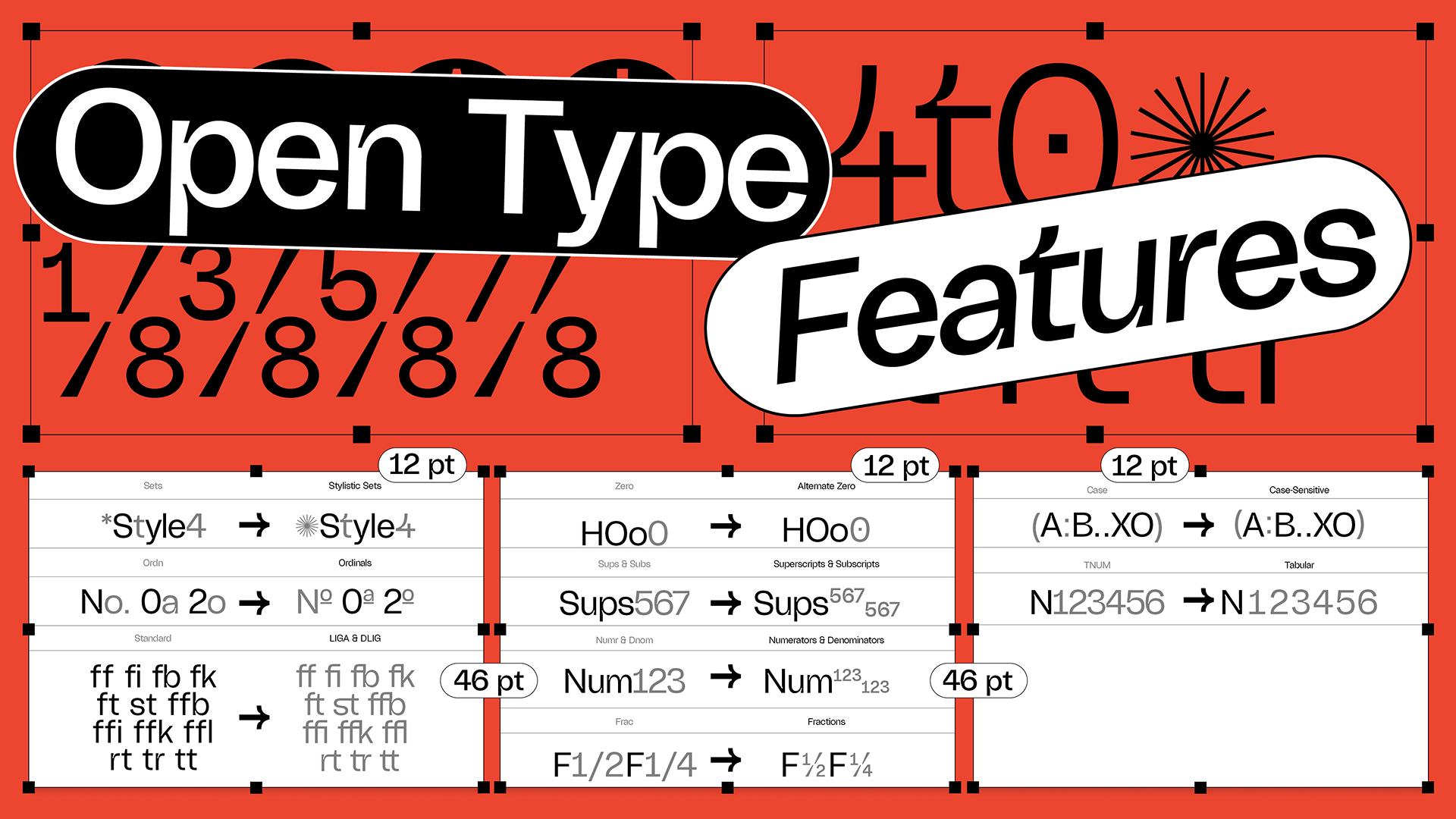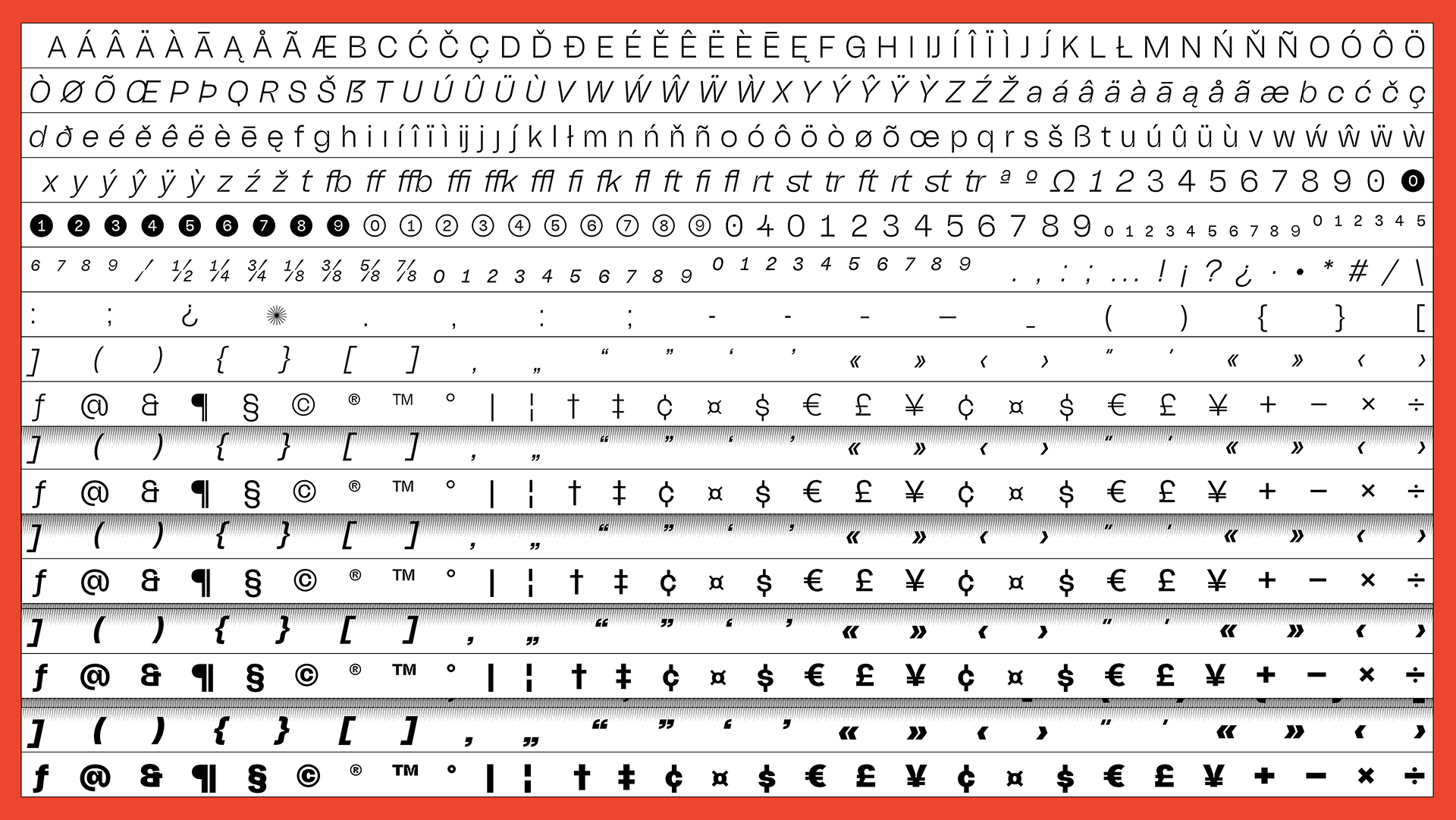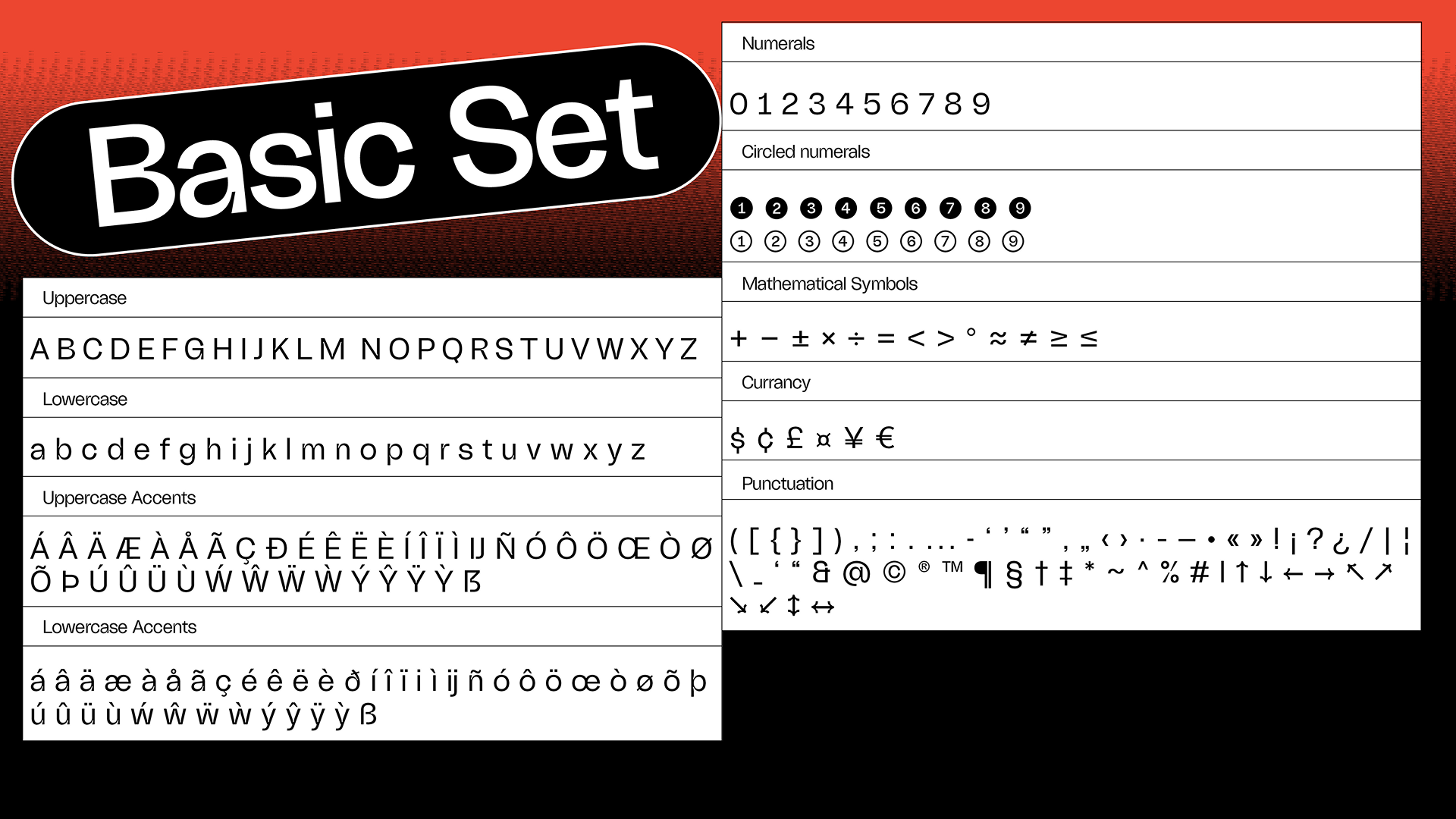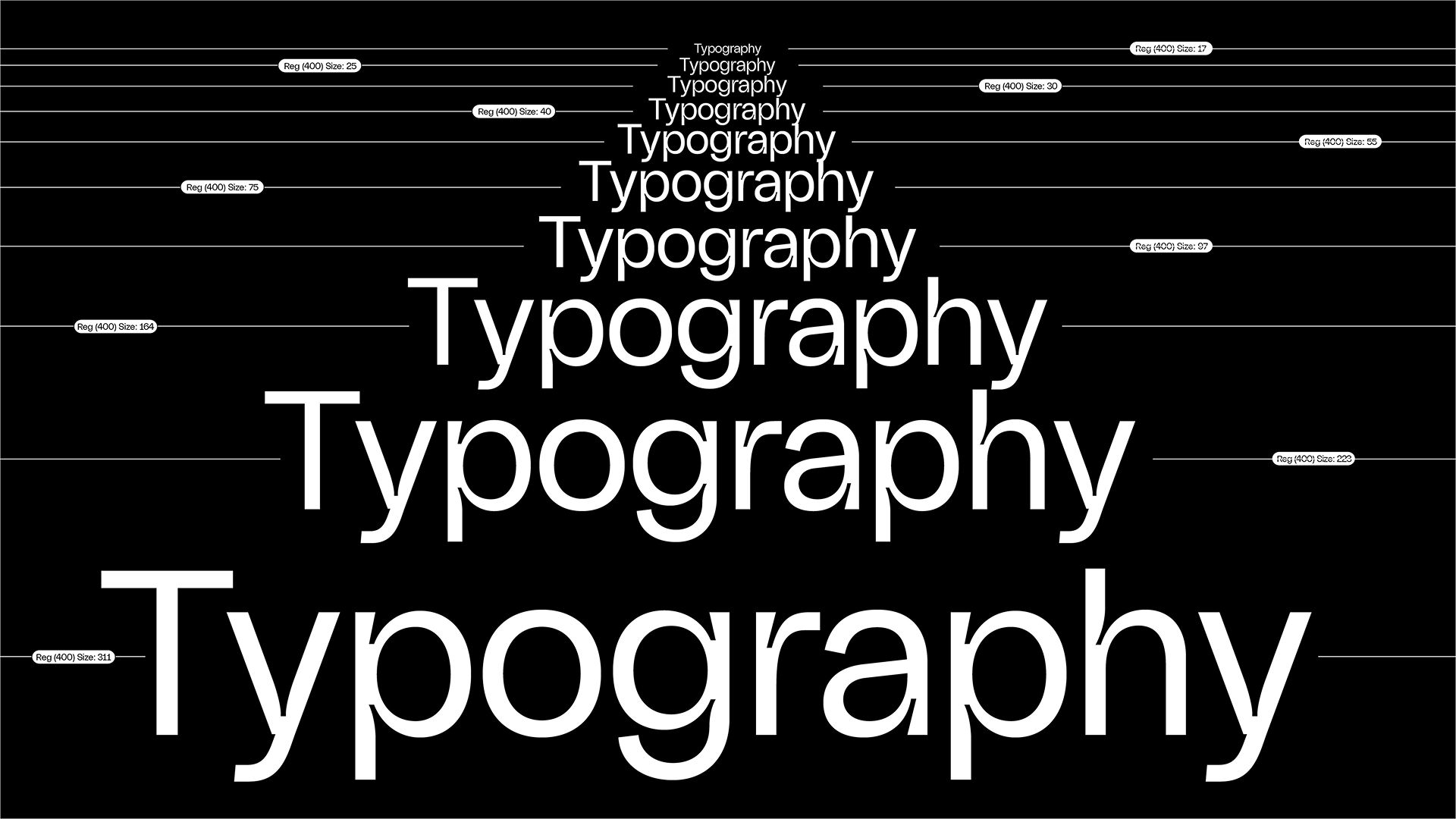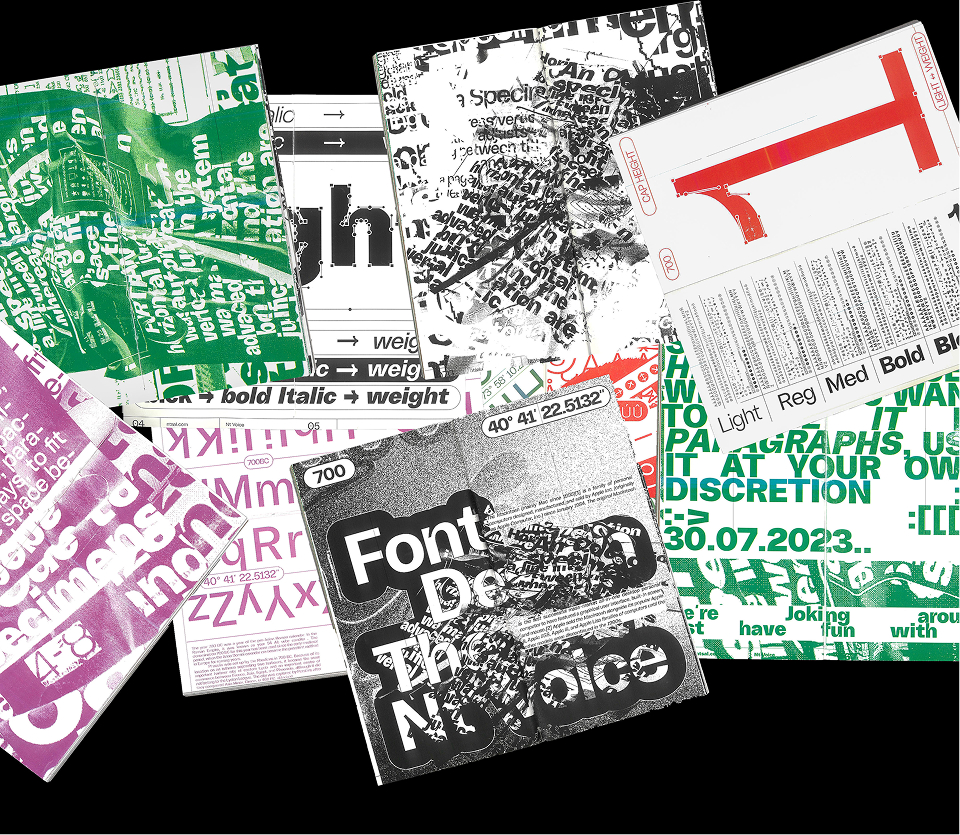
STYLISTIC SETS
Venturing into type design as a studio, we wanted to explore the limits of the definition of a typographic specimen. Through assigning different facts and meanings to specific metrics of the typeface correlating to sea, land, air, man and machine. The series was created out of digital and analogue scans to test a multi-weight typeface as a visual element with each poster catering to one weight out of five.
Styles
10 Styles
latin